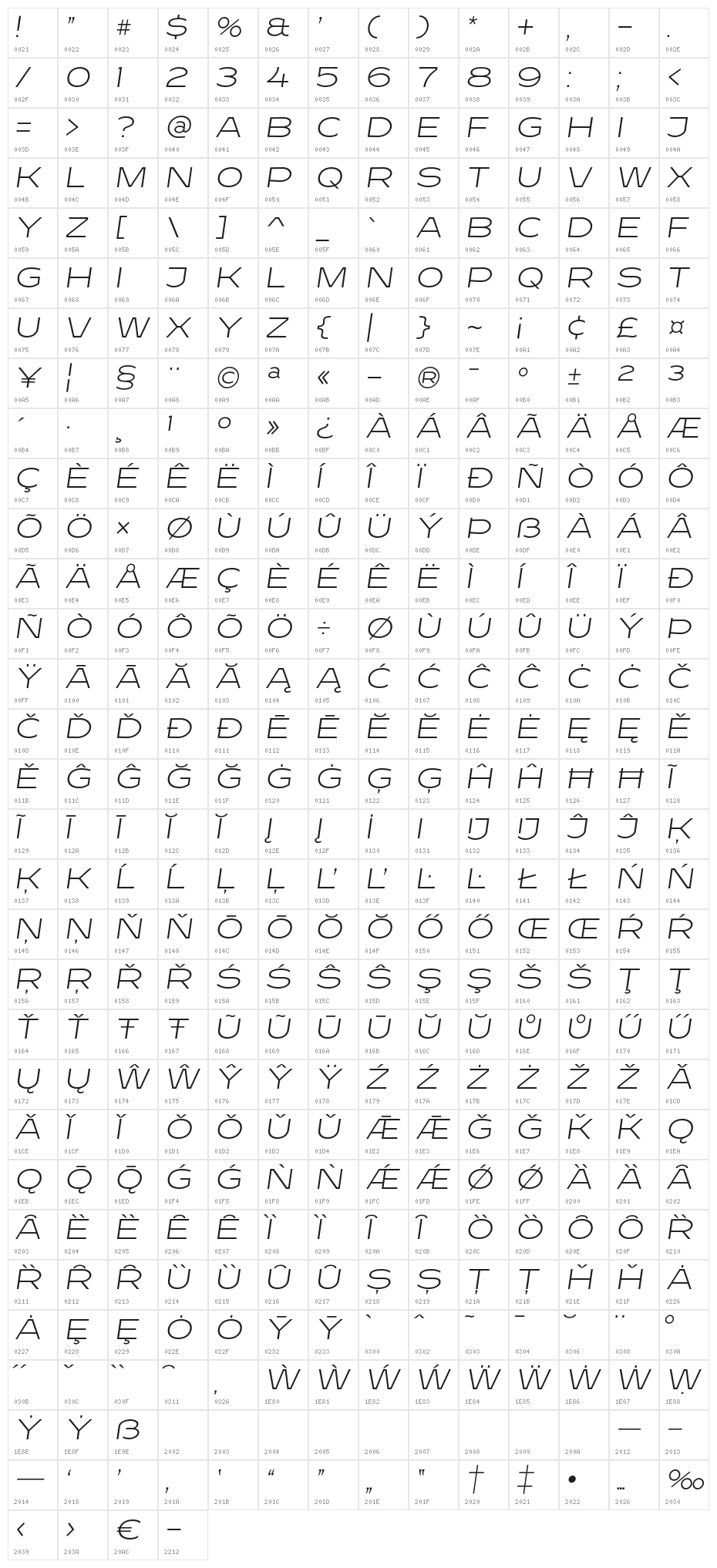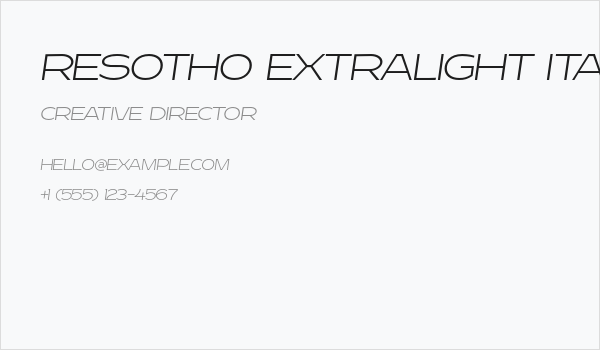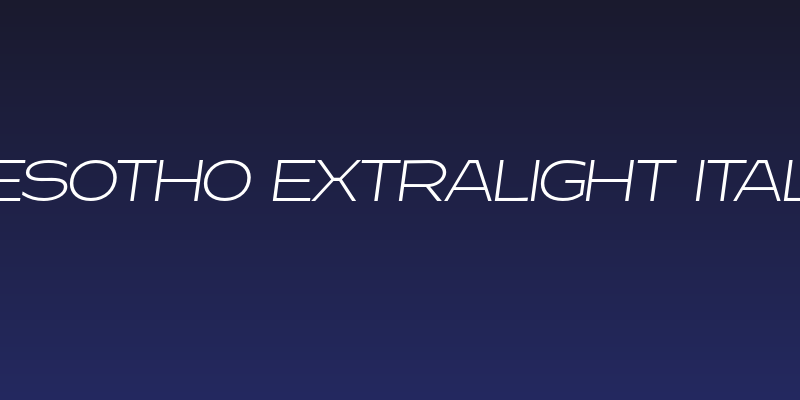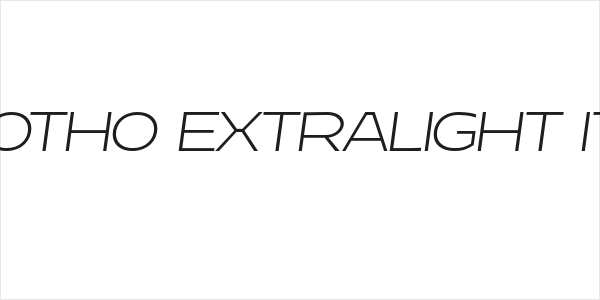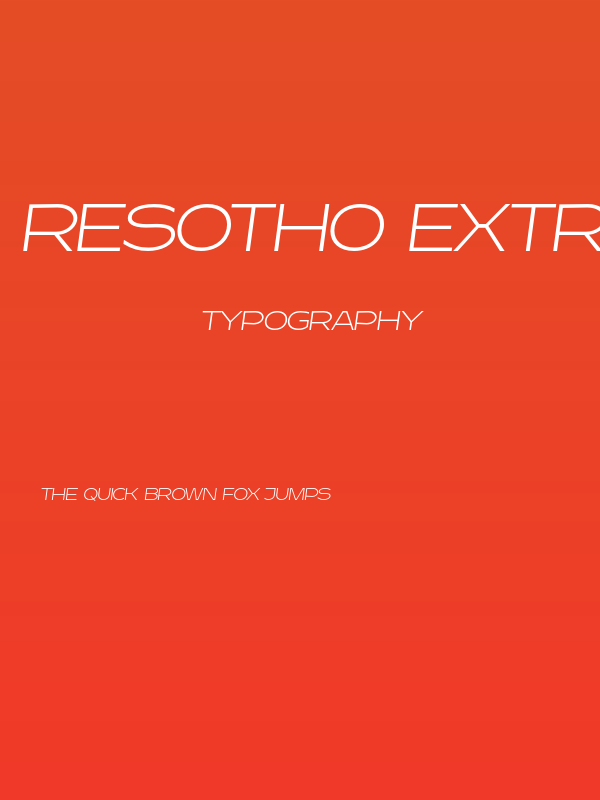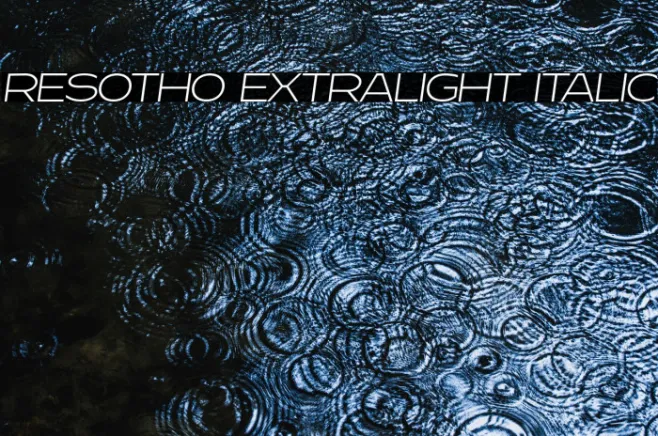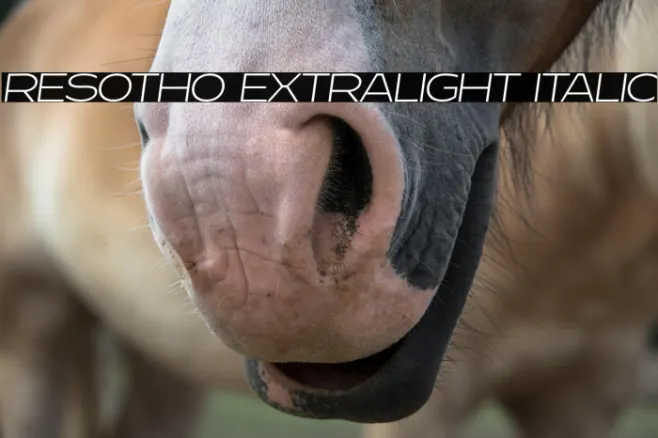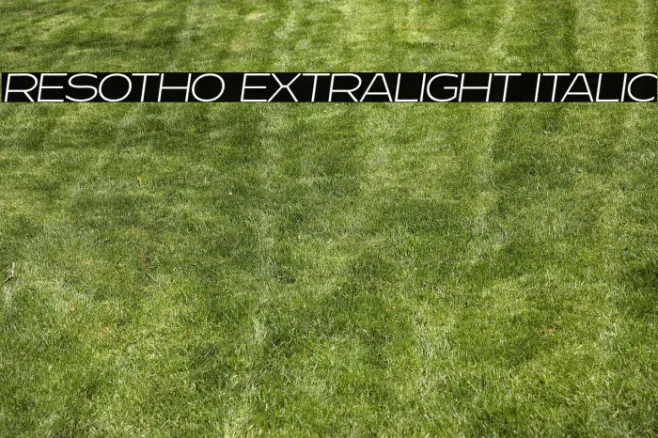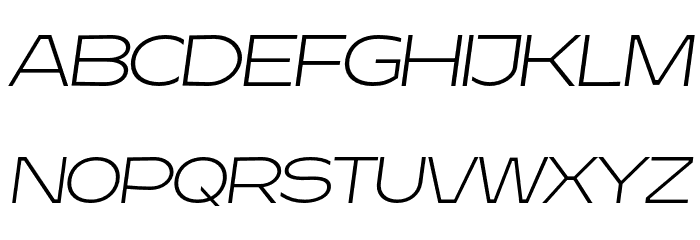
Resotho Extralight Italic Font
Resotho Extralight Italic Description
This font exhibits a sleek and modern aesthetic with its extra-light weight and italicized form. The characters are elegantly elongated, giving a sense of motion and fluidity. The sans-serif design ensures a clean and uncluttered appearance, making it suitable for contemporary applications. The uniform stroke width across characters contributes to a harmonious and balanced look. The font's minimalistic style is accentuated by its subtle slant, which adds a dynamic touch without compromising readability. The spacing between characters is moderately tight, enhancing its streamlined appearance. This font is ideal for projects that require a sophisticated and modern touch, such as branding, editorial design, and digital interfaces.